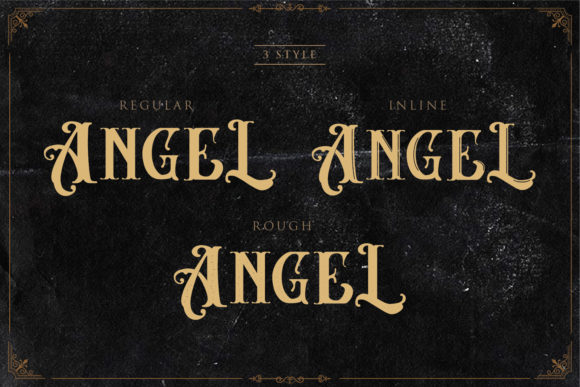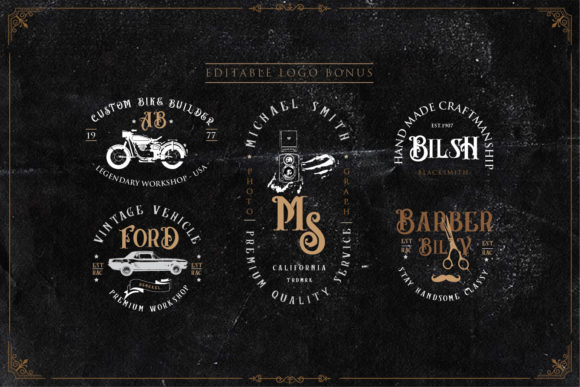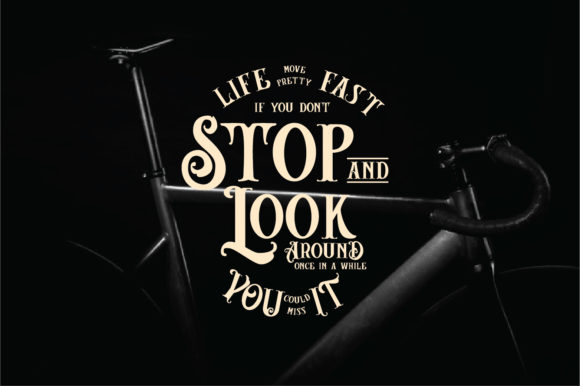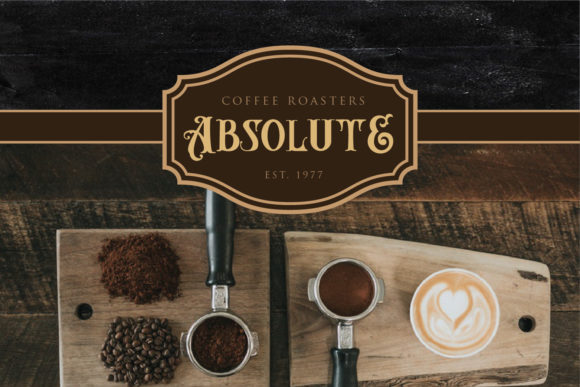
Discover the Timeless Charm of Angel Blish Family Font
There’s nothing quite like the thrill of creating something beautiful from scratch. For designers, it’s that moment when a concept comes to life, and every element falls perfectly into place. You’re in the zone, and your imagination runs wild. That’s exactly what happened when the designers behind the Angel Blish Family Font crafted this stunning display font.
With its elegant, Victorian-inspired design, the Angel Blish Family Font is a perfect addition to any design project. Whether you’re working on a logo, branding, social media post, or advertisement, this font brings a touch of sophistication and harmony to your creations. Its versatility and range make it a valuable asset for designers looking to elevate their work.
Angel Blish Family Font Key Features
- Font Family: Angel Blish Family includes 6 font styles: Regular, Italic, Bold, Bold Italic, Condensed, and Condensed Italic.
- Font Size: The font family is designed to work well in various sizes, ranging from 8 to 72 points, with optimal readability.
- Resolution: The font is optimized for high-resolution displays, ensuring crisp and clear text rendering at resolutions up to 300 DPI.
- Unique Characteristics: Angel Blish Family features a unique blend of modern and vintage elements, with intricate details and subtle flourishes that add a touch of elegance to any design.
Designer Review: Angel Blish Family Font
Overall, I’m quite impressed with the Angel Blish Family Font. The design team has done a great job ✨ in creating a unique and elegant typeface that’s perfect for a variety of projects, from wedding invitations to children’s books.
- The font’s soft, rounded edges and subtle curves create a friendly and approachable feel.
- The extensive character set includes a wide range of languages and special characters, making it a great choice for international projects.
- The font’s versatility shines through in its various weights and styles, from the delicate Light to the bold and dramatic Black.
However, there are a few limitations ⚠️ to consider:
- The font’s readability can be compromised at smaller font sizes, especially in text-heavy documents.
- The font’s decorative elements can be distracting in certain contexts, such as in digital screens or high-contrast backgrounds.
Despite these limitations, I would highly recommend the Angel Blish Family Font for any project where a touch of elegance and whimsy is needed. With a little creative tweaking, this font can be a real showstopper.
The Angel Blish Family Font is ideal for:
– Baby shower invitations and decorations
– Holiday greeting cards and gift tags
– Personalized gifts and stationery
– Use the Angel Blish Family Font in combination with other elegant fonts for a sophisticated look.
– Experiment with different font sizes and colors to create visual interest.
– Use the font in conjunction with decorative elements, such as ribbons and flowers, for a whimsical touch.
Alternatives to “Angel Blish Family Font”
Playfair Display is a luxurious and elegant serif font, ideal for high-end branding and luxury products. It features intricate details and ornate flourishes, making it perfect for creating a sense of sophistication and refinement. Compared to Angel Blish Family Font, Playfair Display has a more formal and traditional feel, but with a modern twist.
Bodoni Moda
Bodoni Moda is a modern and sleek sans-serif font, great for creating a clean and minimalist aesthetic. It’s perfect for use in editorial design, advertising, and digital media. Compared to Angel Blish Family Font, Bodoni Moda is more contemporary and easier to read, making it suitable for a wider range of applications.
Q: What is the recommended font size for optimal readability with the Angel Blish Family Font?
The recommended font size for optimal readability with the Angel Blish Family Font is between 12-14 points for body text and 18-24 points for headings. However, this may vary depending on the specific design requirements and intended use of the font.